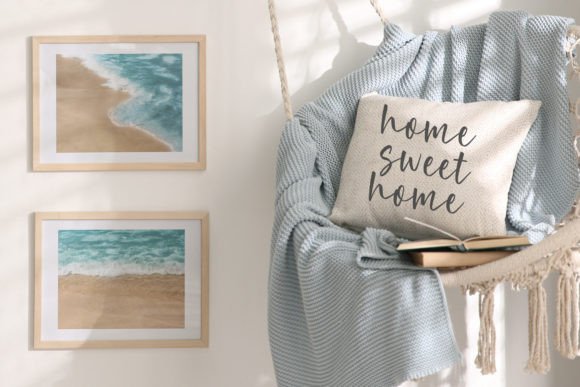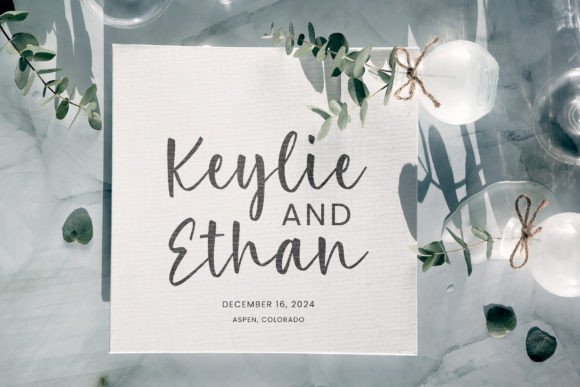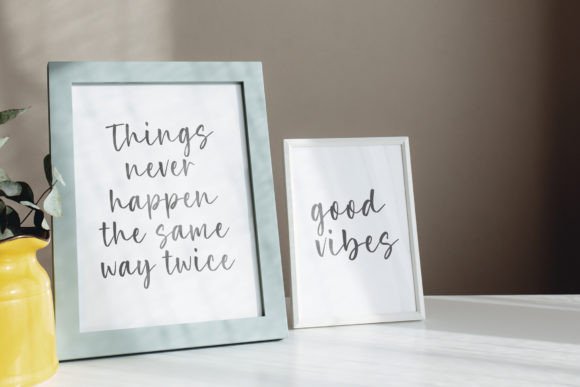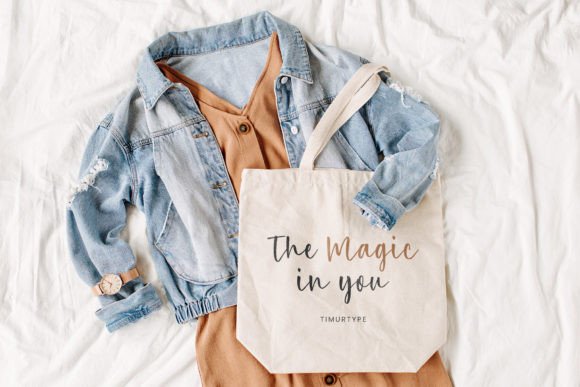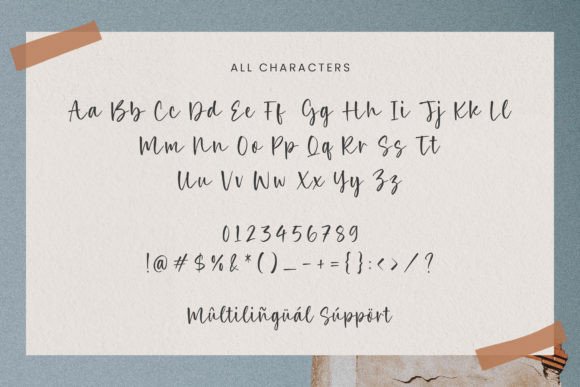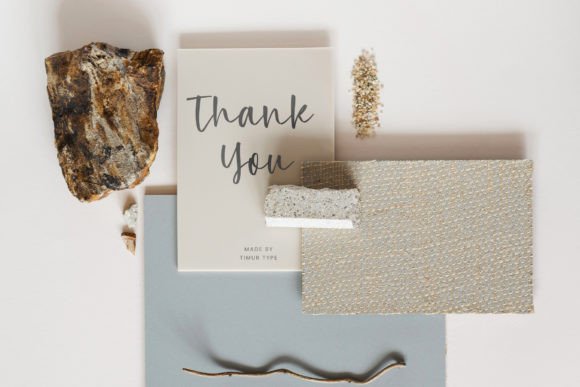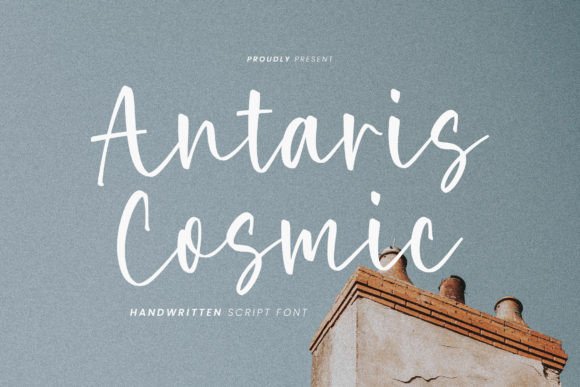
Introducing Antaris Cosmic Font: Elevate Your Designs with a Touch of Celestial Elegance
In the vast universe of typography, there exist fonts that are not just a means of communication but an expression of artistry and emotion. Among these stellar creations is the Antaris Cosmic Font, a handmade signature style font that has captured the hearts of designers and crafters alike. With its decorative characters and dancing baseline, Antaris Cosmic brings a unique blend of elegance and whimsy to any design project.
The Essence of Antaris Cosmic
Antaris Cosmic is more than just a font; it’s an experience. Imagine a font that dances across your canvas, leaving a trail of magic and wonder. Each character in Antaris Cosmic is meticulously crafted by hand, giving it a personal touch that is hard to find in digital typography. The decorative elements and the fluidity of the dancing baseline make it perfect for projects where you want to evoke a sense of sophistication and charm.
One of the standout features of Antaris Cosmic is its versatility. Whether you’re working on an invitation, a greeting card, branding materials, a business card, a quote, or a poster, this font fits seamlessly into any design. Its unique style can transform mundane text into a visually appealing piece of art that captures attention and conveys your message with elegance.
Perfect for Designers
For designers, Antaris Cosmic offers a plethora of creative possibilities. It can be used to:
- Create Stunning Invitations: Make your event invitations stand out with a font that exudes luxury and sophistication.
- Elevate Branding Materials: Use Antaris Cosmic to give your brand a unique voice and aesthetic that sets it apart from the competition.
- Design Beautiful Quotes: Transform inspirational quotes into visually appealing graphics that can be shared on social media or used in marketing campaigns.
A Crafter’s Delight
Crafters will also find Antaris Cosmic to be a valuable addition to their toolkit. The font’s unique characteristics make it ideal for:
- Greeting Cards: Add a personal touch to your handmade greeting cards with a font that feels both luxurious and intimate.
- DIY Projects: Whether you’re working on a scrapbooking project, a handmade gift tag, or a customized piece of home decor, Antaris Cosmic can add that special something that makes your project stand out.
Why Choose Antaris Cosmic?
With so many fonts available, why choose Antaris Cosmic? The answer lies in its ability to combine elegance with playfulness. The font’s decorative characters and dancing baseline are not just visually appealing; they also add a layer of personality to your designs. Moreover, the handmade nature of the font gives it a unique charm that can make your designs feel more personal and engaging.
Antaris Cosmic is more than just a font; it’s a design element that can elevate your projects to new heights. Its unique blend of elegance, whimsy, and versatility makes it a must-have for designers and crafters looking to add a touch of celestial charm to their work. Whether you’re creating invitations, branding materials, or DIY projects, Antaris Cosmic is sure to inspire and transform your designs. So, why wait? Dive into the cosmic world of typography with Antaris Cosmic and watch your designs soar to new galaxies of creativity and beauty.